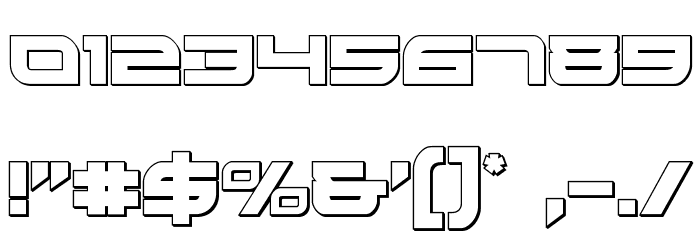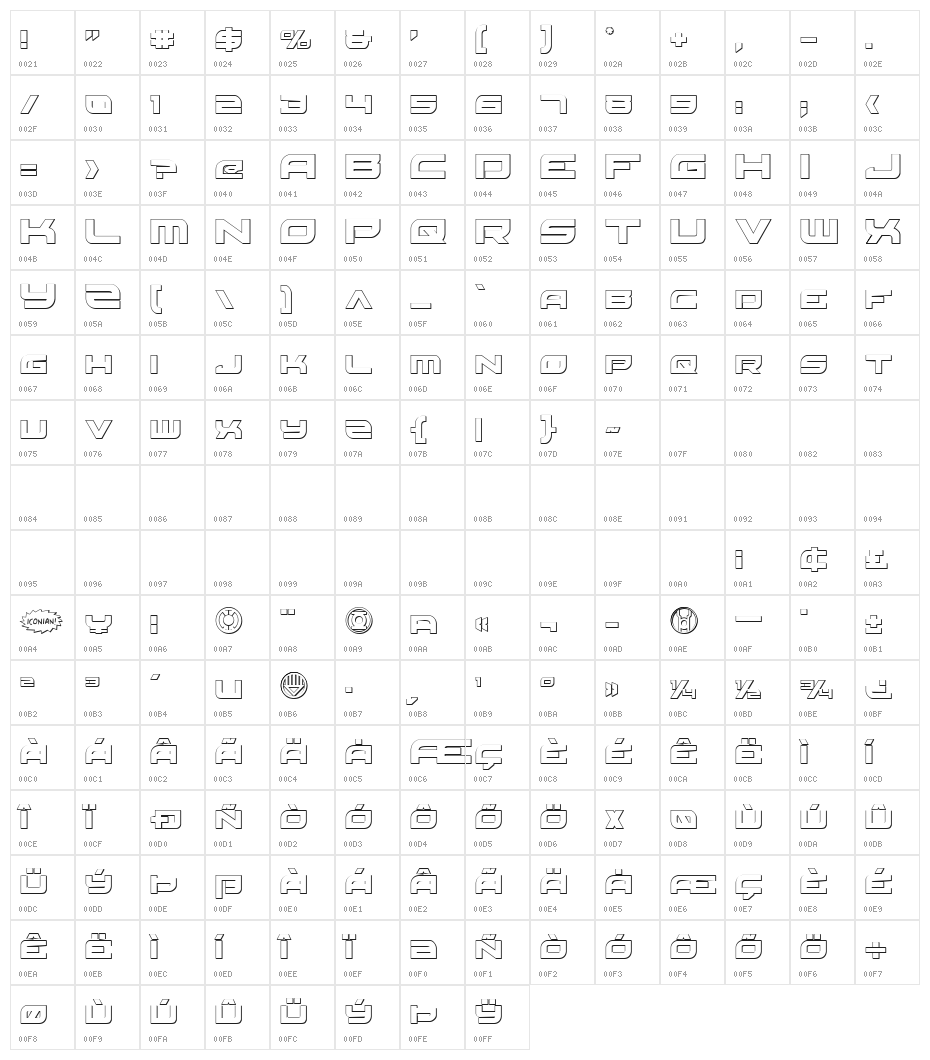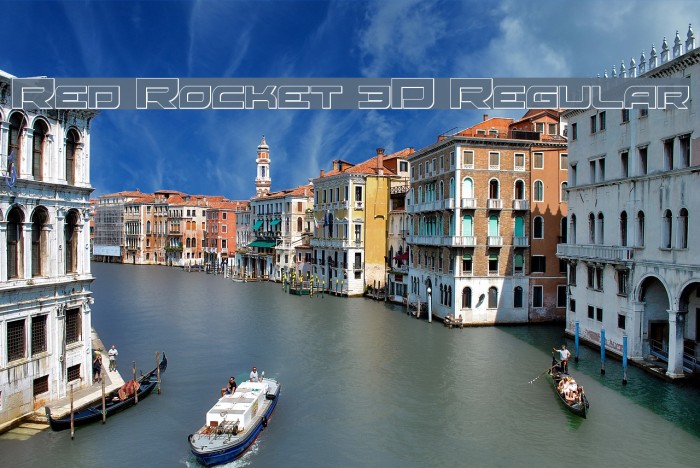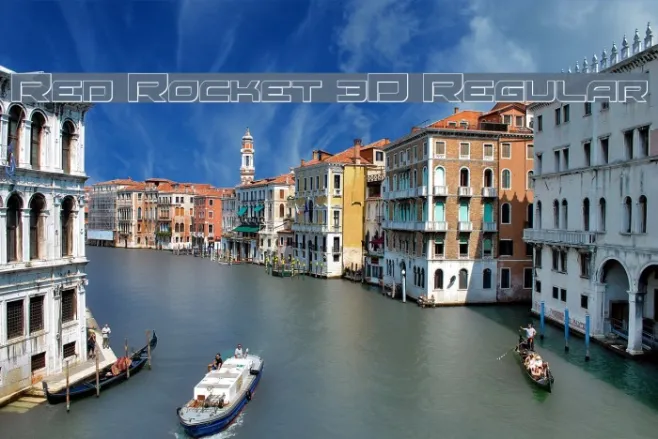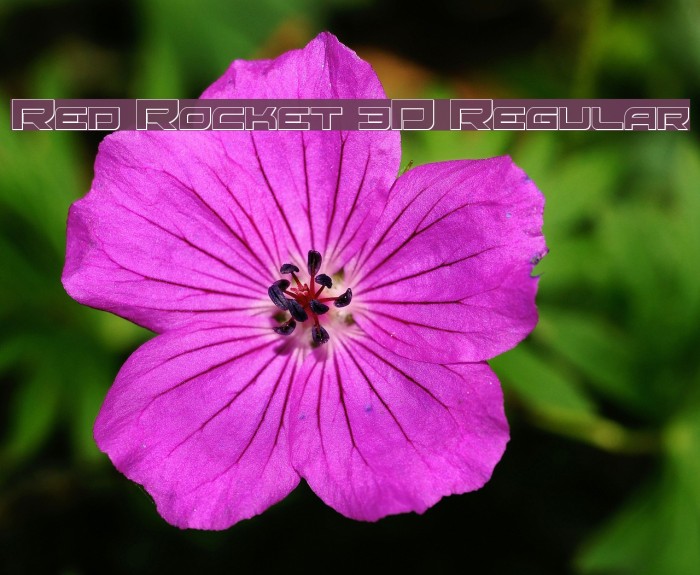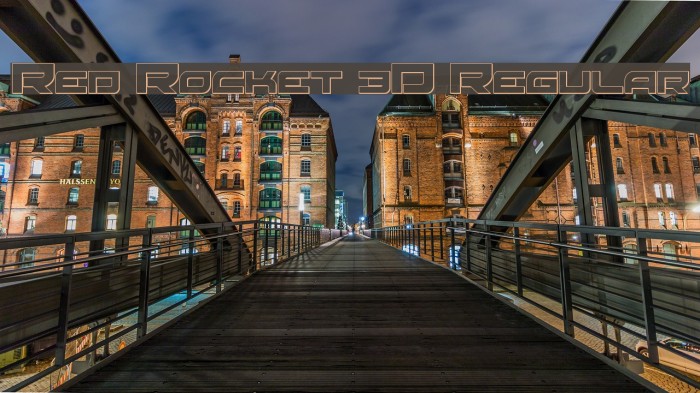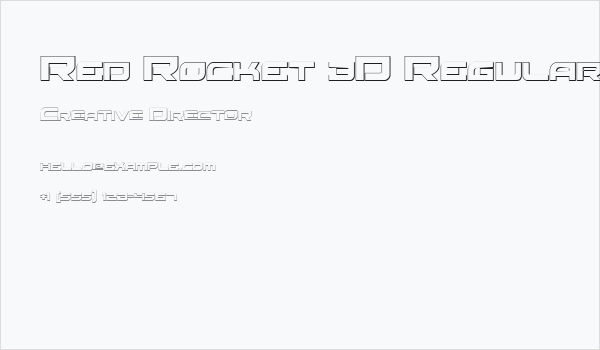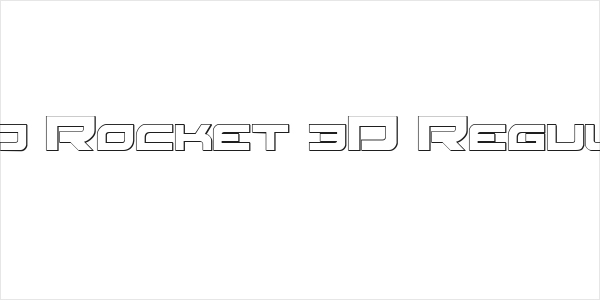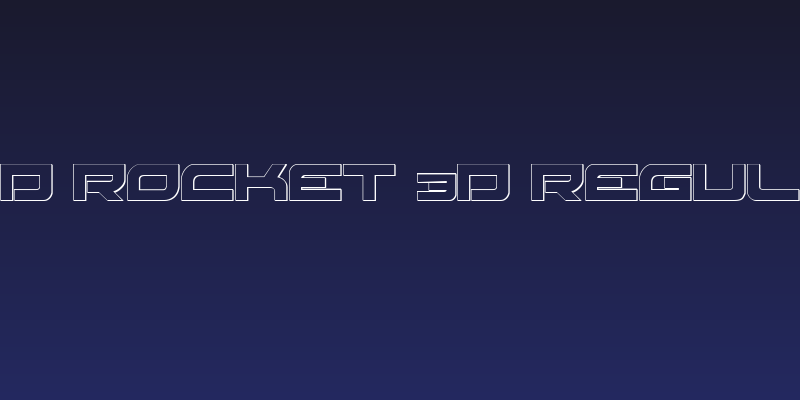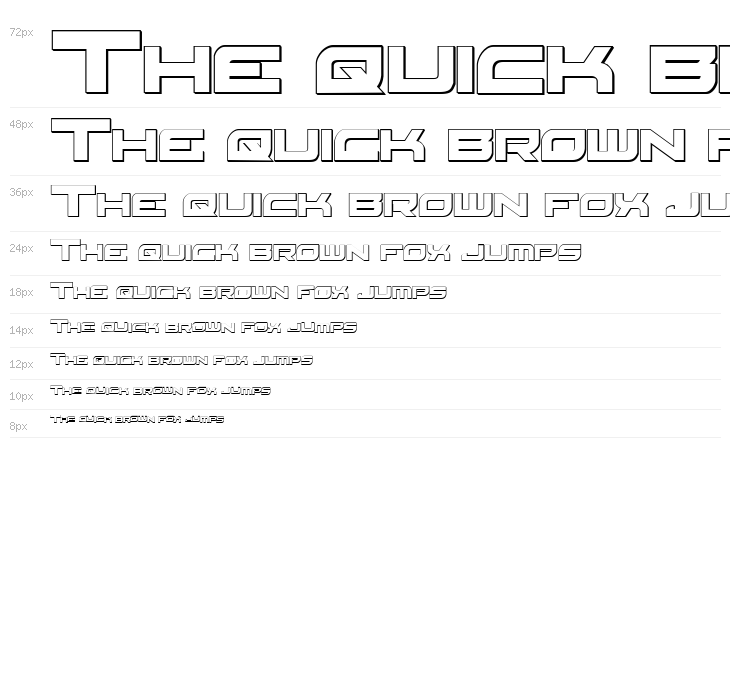
Red Rocket 3D Regular Font
Red Rocket 3D Regular Description
This font features a futuristic and geometric design, characterized by its hollow, outlined letterforms. The uppercase letters are bold and angular, with a consistent stroke width that gives a uniform appearance. The lowercase letters maintain the same style, ensuring coherence across different text cases. Numbers and special characters are designed with the same attention to detail, making them easily recognizable and visually appealing. The overall design is modern and sleek, suitable for projects that require a contemporary and tech-inspired aesthetic.
| Proposed Projects | Ideal for sci-fi themed designs, technology branding, video game titles, and modern posters. |